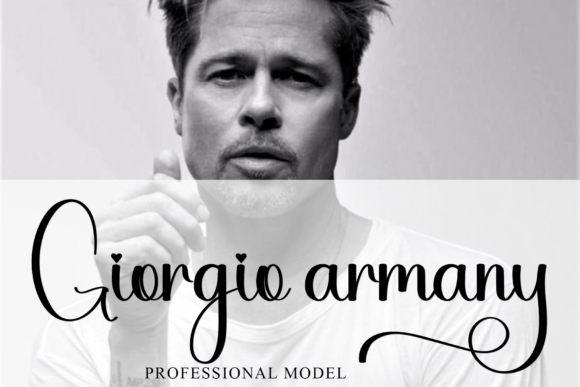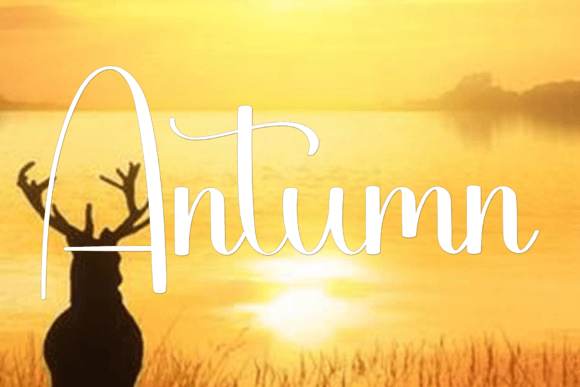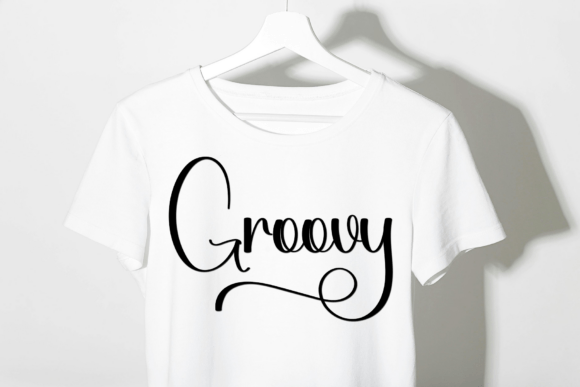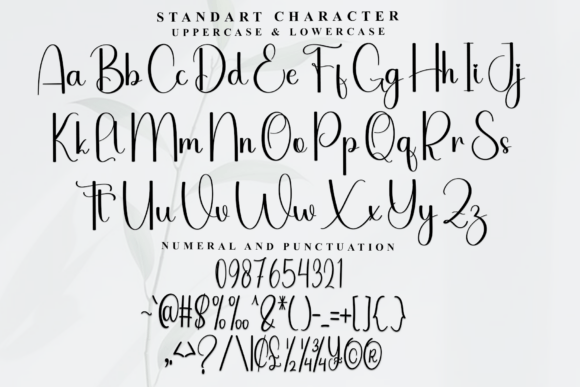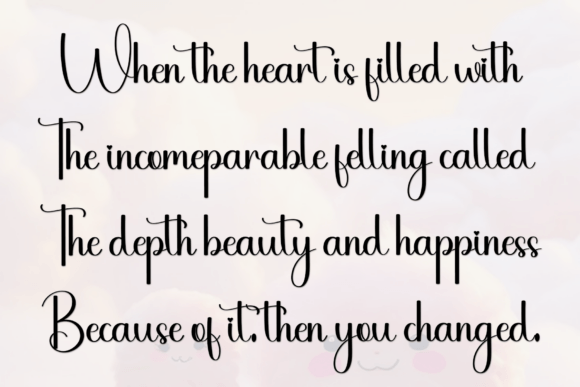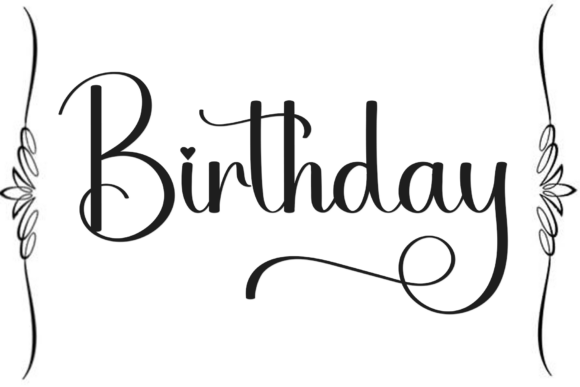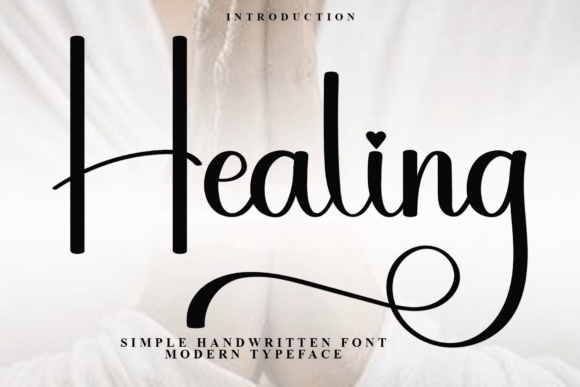
Discover the Soothing Charm of Healing Font: Elevate Your Designs with a Personal Touch
In the world of typography, fonts play a crucial role in conveying emotions and setting the tone for designs. For crafters, designers, and anyone looking to add a personal touch to their projects, the Healing Font is a treasured find. This beautiful handwritten script font is characterized by its smooth, flowing letters that exude a soft, calming feel. In this article, we’ll dive into the unique features of the Healing Font, explore its uses, and discuss how it can elevate your designs to new heights.
The Unique Features of Healing Font
Healing Font is a stunning example of handwritten typography, boasting smooth, cursive letters that flow effortlessly across the page. Its gentle curves and rounded edges give it a soothing quality, perfect for designs that require a calming influence. The font’s softness makes it an excellent choice for projects that aim to evoke feelings of serenity, peace, and warmth.
Perfect for Adding a Personal Touch
One of the standout features of Healing Font is its ability to add a personal and warm touch to designs. Whether you’re working on a project for a client or creating something for personal use, this font will help you connect with your audience on a more intimate level. Its handwritten nature gives designs a sense of authenticity and uniqueness, making it perfect for:
- Handmade or craft-related projects, such as labels, packaging, or blog posts
- Wedding or event invitations, where a personal touch is essential
- Branding and marketing materials, like business cards or brochures
- Personal journals, planners, or stationery
Healing Font is incredibly versatile, allowing you to experiment with various design styles and applications. Its smooth, flowing letters work well in:
- Digital designs, such as social media graphics, blog headers, or website elements
- Print materials, like flyers, posters, or bookmarks
- Handwritten quotes, poems, or inspirational messages
Tips for Using Healing Font Effectively
To make the most of Healing Font, consider the following tips:
- Pair it with contrasting fonts to create visual interest and hierarchy
- Experiment with different colors, such as pastel shades or earthy tones, to enhance its calming effect
- Use it in combination with natural textures or illustrations to add depth and warmth
- Don’t be afraid to adjust the font size or style to suit your design needs
Healing Font is a beautiful, handwritten script font that offers a unique combination of smooth, flowing letters and a soft, calming feel. Its versatility and personal touch make it an excellent choice for designers, crafters, and anyone looking to elevate their projects. Whether you’re working on a handmade craft, a branding project, or a personal journal, Healing Font is sure to bring a touch of warmth and serenity to your designs.